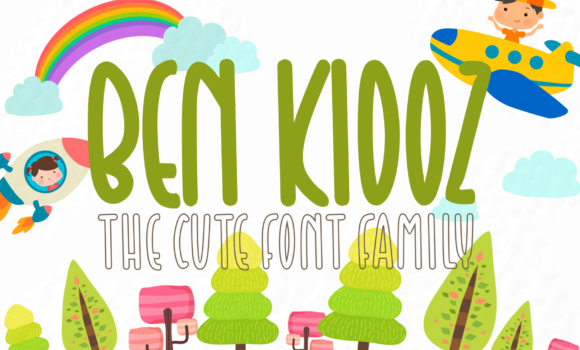
Ben Kidoz Font – Free Download Introduction to Ben Kidoz Font Ben Kidoz is a sweet and friendly display font, created with an incredible playful touch. 📸 Preview Gallery 6 images 📌 Product Name Ben Kidoz Font 👤 Author sipanji